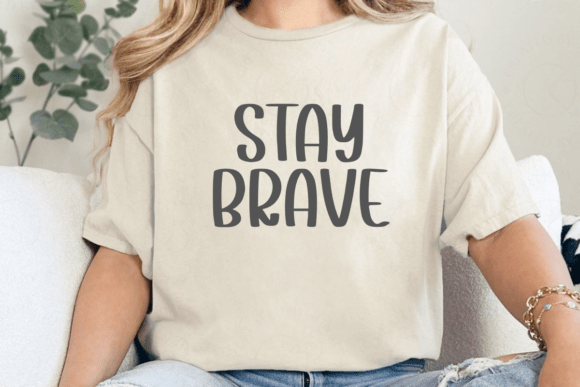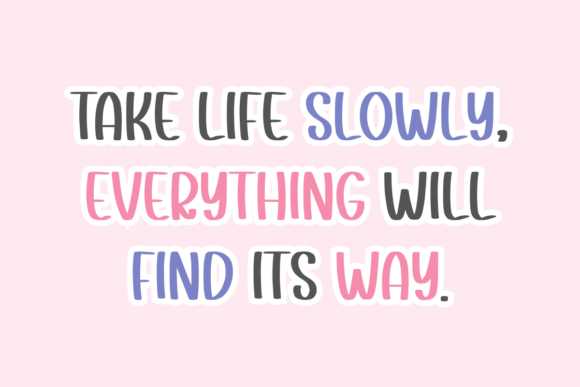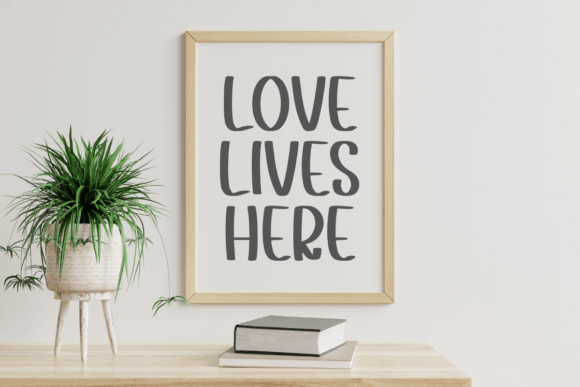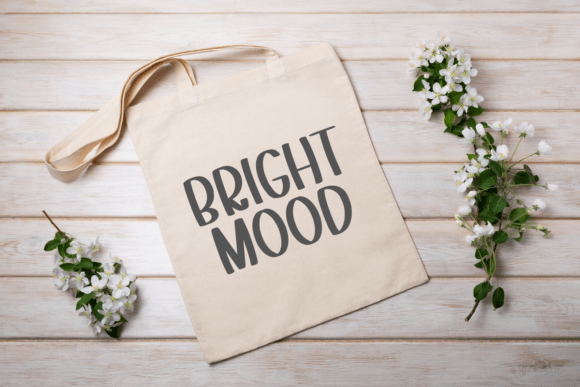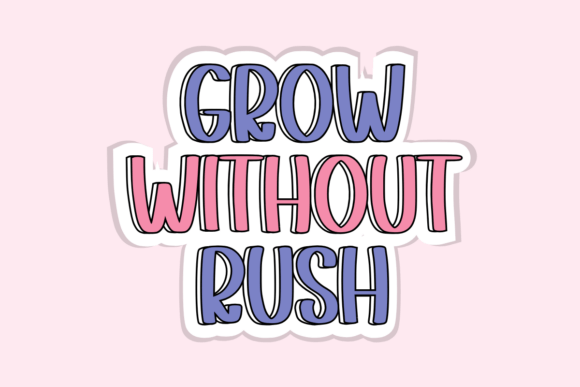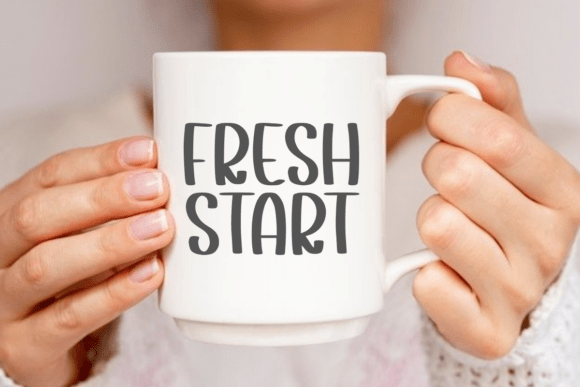
Discover Your Inner Crafty Self with the Bright Spirit Font
Do you remember the feeling of sitting at your kitchen table as a kid, surrounded by colorful markers, glue, and construction paper? The world of crafting and creativity was your playground, and the possibilities seemed endless. As an adult, that spark of imagination still burns bright within you, guiding you to create unique and personalized projects for yourself and your loved ones.
That’s where the Bright Spirit Font comes in – a beautiful, handcrafted sans serif font designed to bring warmth and personality to your craft projects. With its soft, friendly, and natural look, this font is perfect for crafty moms, DIY enthusiasts, and anyone who wants to add a touch of handmade charm to their designs. Whether you’re creating planners, stickers, or kids’ worksheets, the Bright Spirit Font is the perfect companion to help you bring your creative vision to life.
Bright Spirit Font Key Features
- Unique Characteristics: The Bright Spirit Font features a unique, hand-drawn design with a mix of bold and delicate lines, giving it a distinctive and eye-catching appearance.
- Legibility: The font is designed to be highly legible, with clear and easy-to-read letterforms that make it suitable for use in a variety of contexts, from body text to headlines.
Bright Spirit Font Review
Overall, I’m impressed with the Bright Spirit Font. It’s a unique and uplifting typeface that’s perfect for creating energetic and motivational designs.
- Optical Balance: The font’s x-height and stroke width are perfectly balanced, making it easy on the eyes.
- Customizability: Bright Spirit Font offers a range of styles and weights, allowing designers to experiment with different looks and feels.
- Creative Freedom: This font is ideal for designers who want to push the boundaries of typography and create visually striking designs.
- Readability in Small Sizes: While the font is legible at larger sizes, it can become a bit fuzzy when used at smaller font sizes.
- Lack of Professional or Corporate Feel: Bright Spirit Font’s playful and whimsical nature may not be suitable for more formal or professional designs.
Overall, I’d give the Bright Spirit Font 4 out of 5 stars. It’s a fantastic choice for designers looking to add a touch of personality and energy to their projects. However, it may not be the best fit for every design scenario.
Tips for Getting the Most Out of Bright Spirit Font
For best results, use Bright Spirit Font for headings and titles to add a touch of elegance and sophistication to your design.
Pair Bright Spirit Font with a clean and simple sans-serif font for body text to create a visually appealing contrast.
Experiment with different font sizes and colors to create a unique and eye-catching design.
Bright Spirit Font is perfect for:
Business cards and promotional materials
Editorial and publishing design